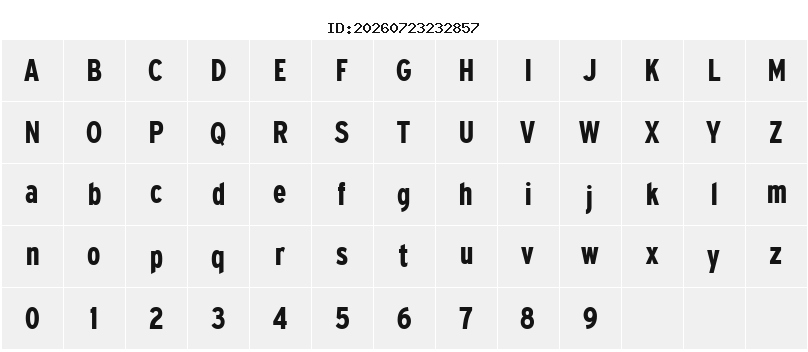
• Font Name: Expressway Cd Sb
• Full Font Name: Expressway Cd Sb
• Designer: Ray Larabie
• Manufacturer: Ray Larabie
• Description: Updated in March 2007 with improved accents, kerning, class-based kering, Hungarian and Romanian characters.
About Expressway Cd Sb.ttf
Expressway Cd Sb.ttf is a modern, elegant sans-serif font designed for ultimate readability and visual harmony. Perfect for branding, headlines, web design, and print materials.